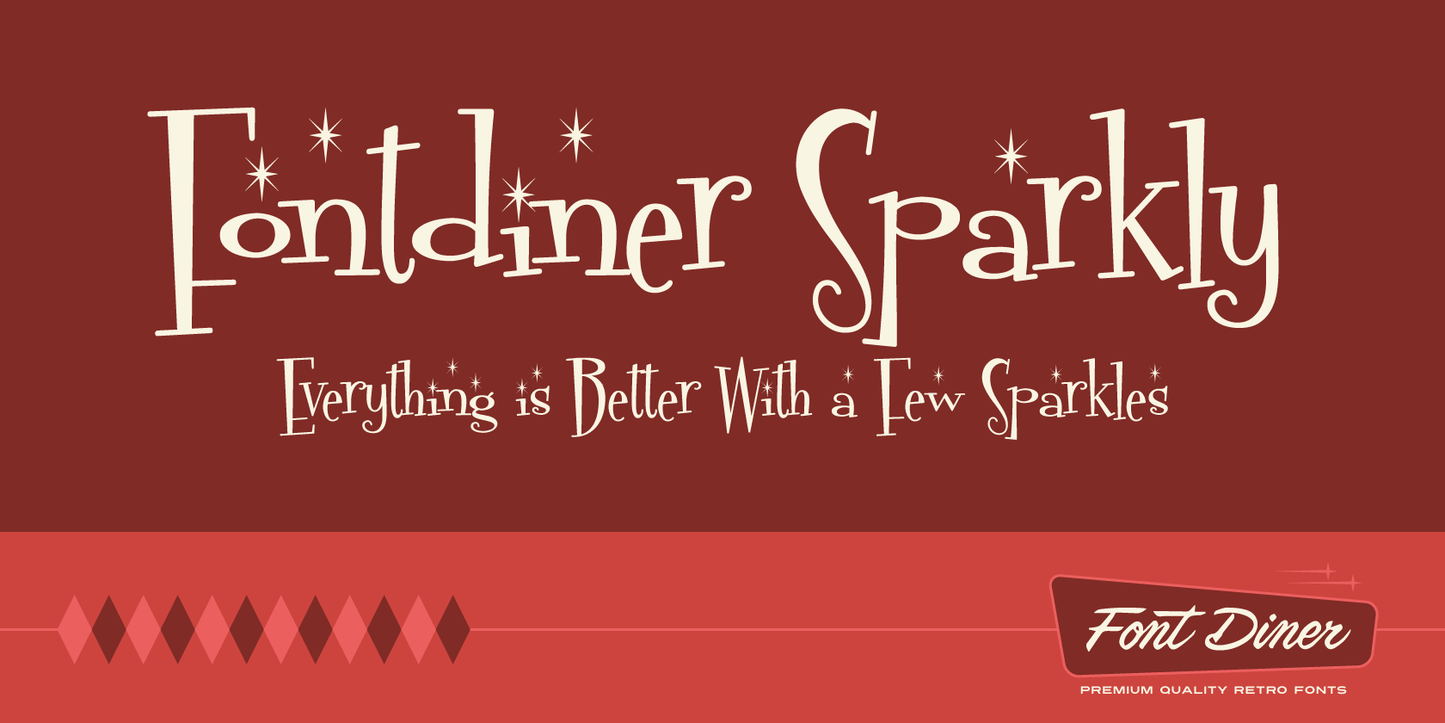
Like our Fontdinerdotcom font, but nothing makes a font come alive better than sparkles!
Fontdinerdotcom Sparkly Font
Fontdinerdotcom Sparkly
Like our Fontdinerdotcom font, but nothing makes a font come alive better than sparkles!